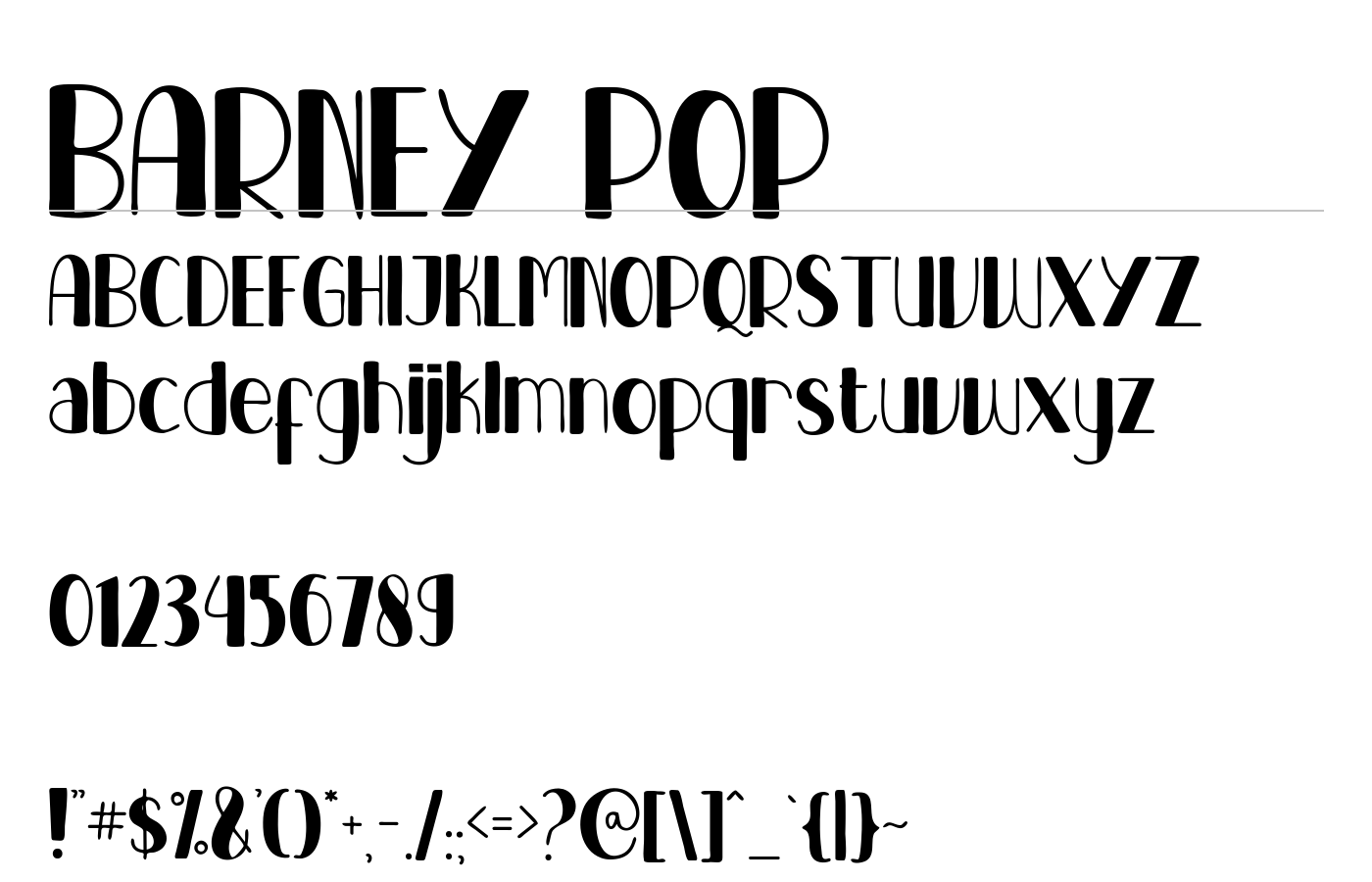
BARNEY POP is a playful and quirky sans serif font with a tall, narrow structure and unique stroke contrasts that mix thick and thin elements in an engaging way. Its hand-drawn feel, unusual letter shapes, and energetic style make it perfect for creative projects, fun branding, and eye-catching headlines where a lively and modern personality is desired. This font works especially well in contexts that call for a distinctive, artistic vibe rather than traditional or formal tone.
BARNEY POP Font